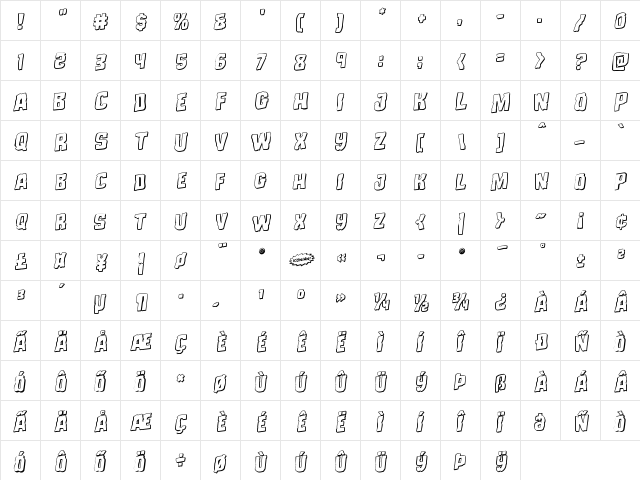
Monster Hunter 3D Rotalic Italic
Design Context for Monster Hunter 3D Rotalic Typeface
Monster Hunter 3D Rotalic is a composed and adaptable typeface that performs quietly and consistently across a wide range of design contexts. The dynamic lean of this cut emphasises speed and emphasis in any layout.
Pro Tip: Try Monster Hunter 3D Rotalic for annotation and caption copy alongside an upright companion — the contrast in angle creates a dynamic but ordered typographic system.